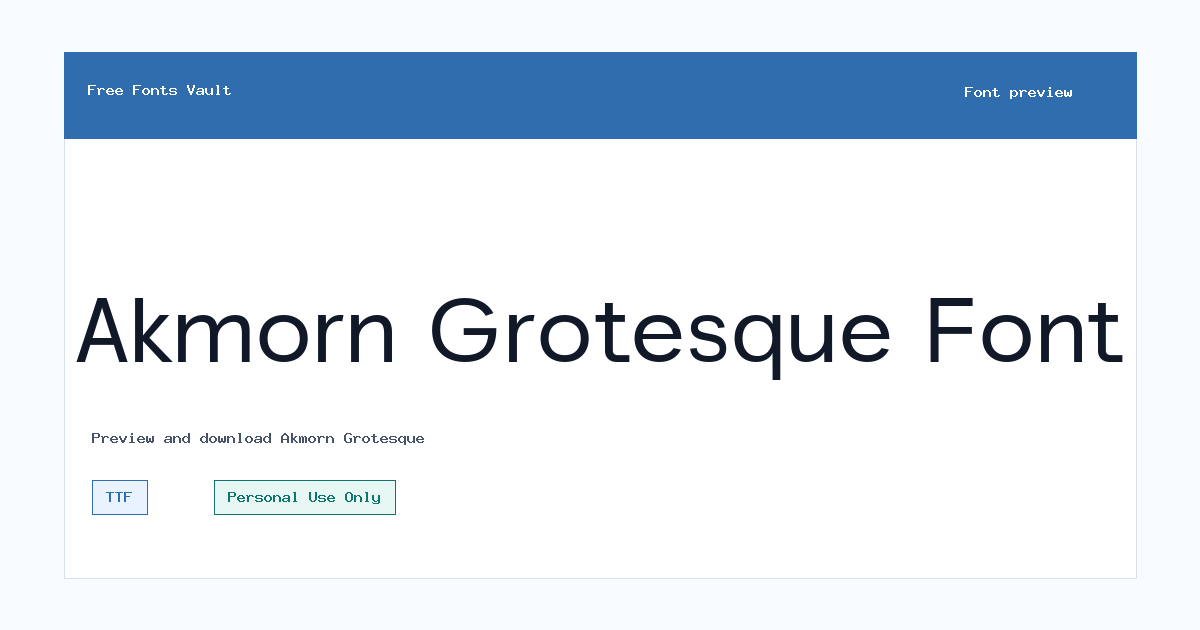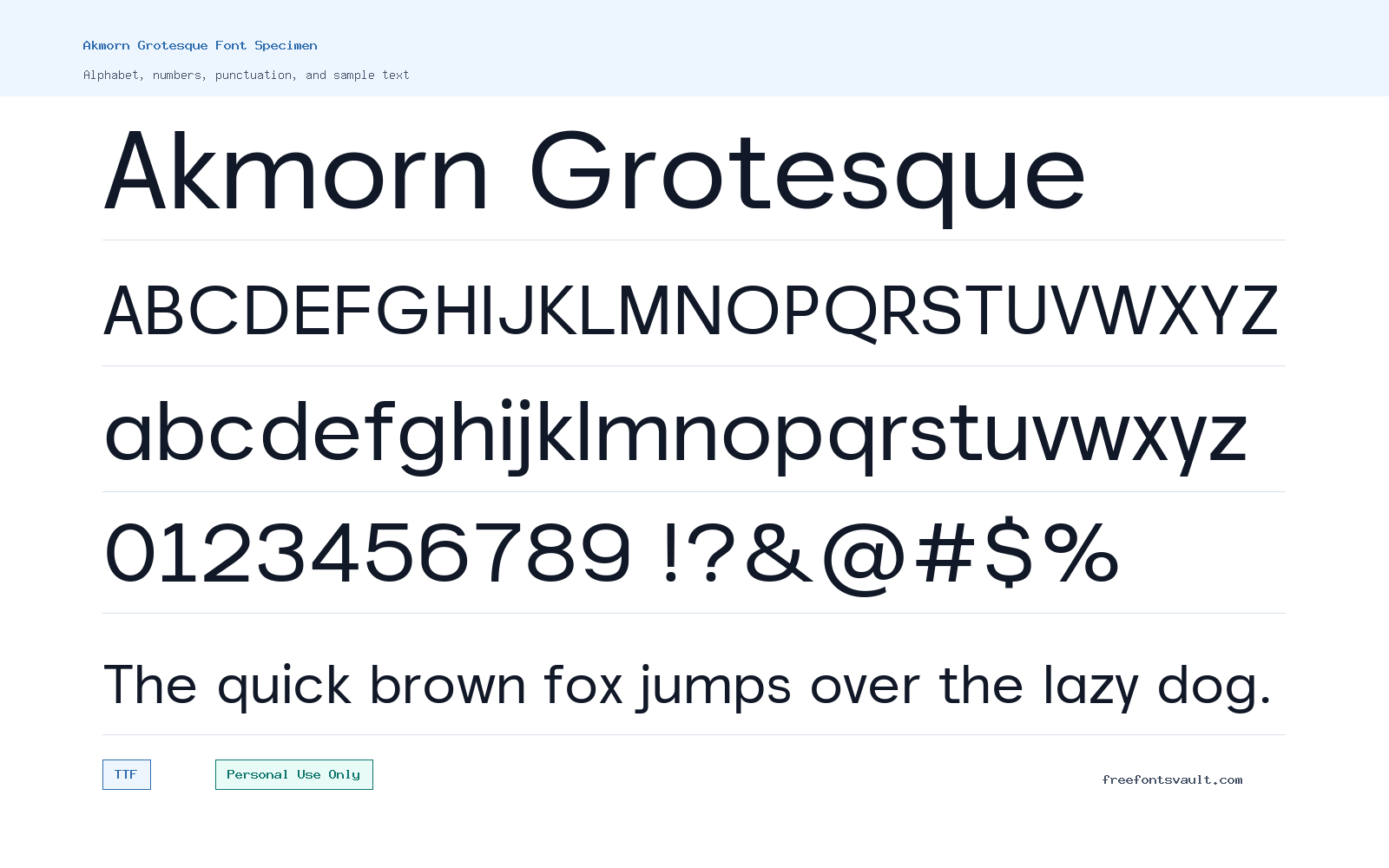
Akmorn Grotesque
- Designer Diki Pradipta Tri Atmojo
- Foundry Lettertype Studio Co.
Akmorn Grotesque font.
Akmorn Grotesque is a sans serif font family with regular and italic demo styles, made for personal-use projects where you want a clean grotesque look with a straightforward tone.
About Akmorn Grotesque
Akmorn Grotesque has the practical feel people expect from a grotesque sans serif: simple letter shapes, steady spacing, and a neutral voice that does not distract from the words. The regular style works best when you need a direct headline, label, poster title, or short block of display text. The italic style gives you a matching slant for emphasis, captions, pull quotes, or secondary text. Since the files are demo TTF fonts, it is best to test your exact wording in the preview before deciding how large or small to use it.
Use the preview tool to check the letters that matter most in your project, especially names, numbers, punctuation, and mixed-case words. Grotesque sans serif fonts can look sharp in short text, but readability depends on size, spacing, contrast, and the background behind the type. Try Akmorn Grotesque in headings, social graphics, personal posters, mood boards, portfolio drafts, and non-commercial branding mockups. For longer paragraphs, compare it with a more text-focused body font and increase line spacing if the layout feels tight.
- Clean sans serif structure suited to short display text, headings, and personal design drafts
- Personal posters, title graphics, portfolio mockups, and social media layouts
- Headlines, short labels, emphasis text, and design previews that need a neutral sans serif style
Akmorn Grotesque is credited to designer Diki Pradipta Tri Atmojo and foundry Lettertype Studio Co.
What kind of projects is Akmorn Grotesque good for?
It is most useful for personal-use headlines, posters, mockups, social graphics, captions, and short display text where a clean sans serif look fits.
Should I use it for long paragraphs?
Test it first. It may work for short text, but longer reading sections need careful size, spacing, and contrast checks.